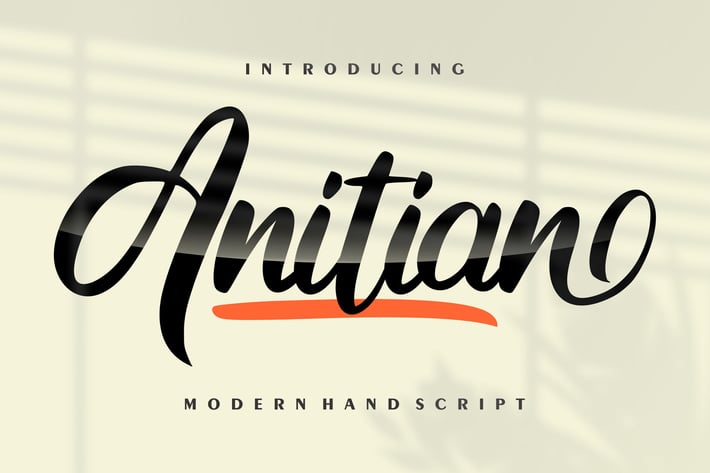
Anitian | Modern Hand Script Font
Anitian | Modern Hand Script Font with a calligraphy style, So beautiful on invitation like greeting cards, branding materials, business cards, quotes, posters, and more!